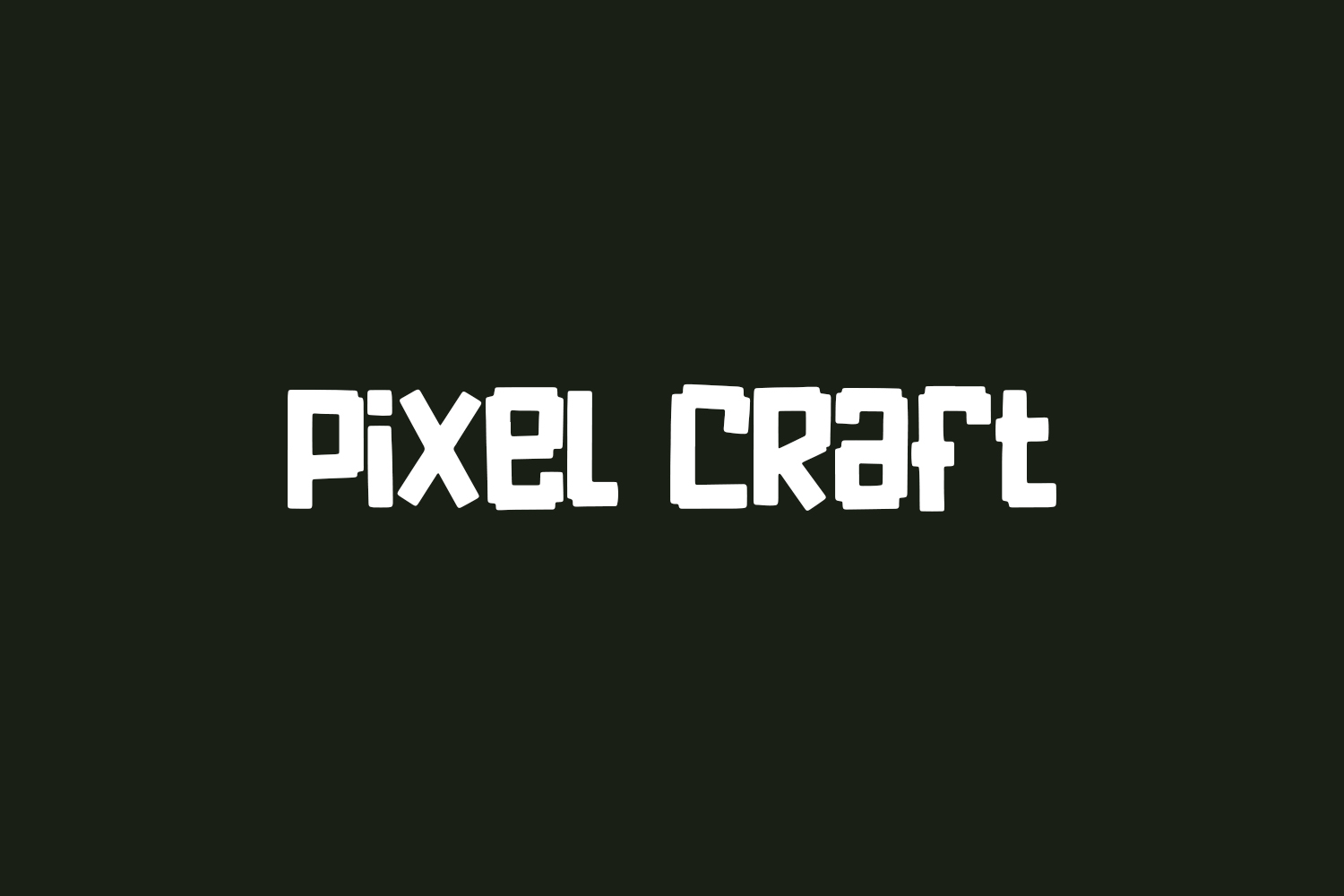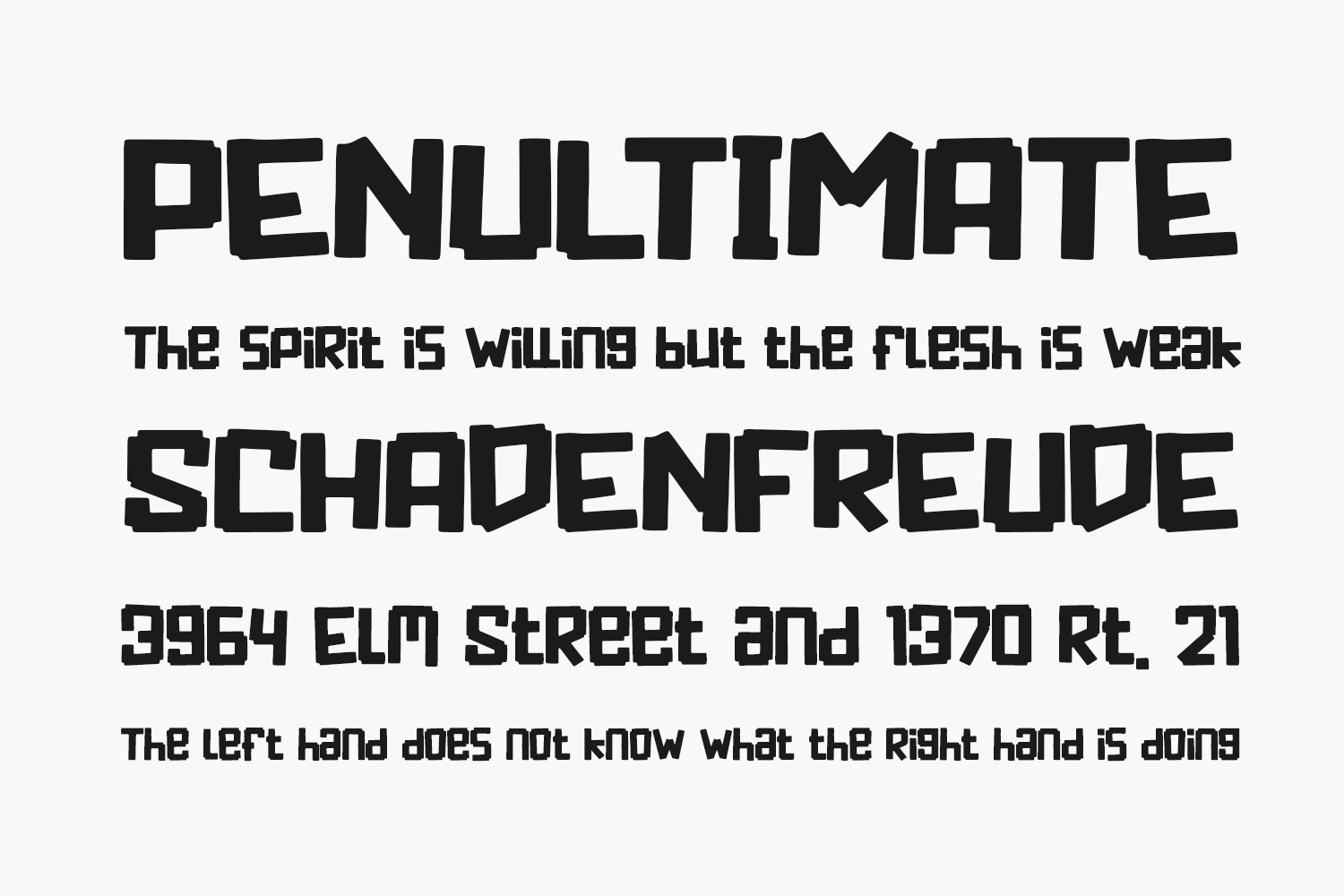
Pixel Craft Free Font is a cute, cool, and quirky looking display font. It embodies playfulness and authenticity and is the perfect choice for any children’s activity or school project. Pixel Craft Free Font was designed by Perspectype Studio and is free for personal use only. Please purchase the full version for commercial use.